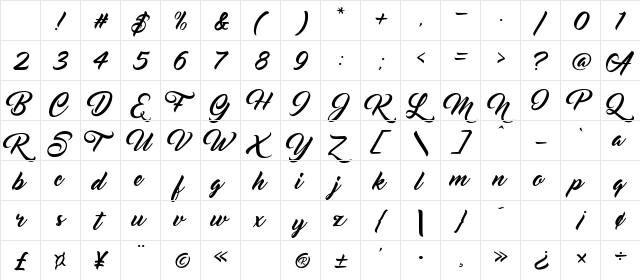
Rougbelt is a composed and adaptable typeface that performs quietly and consistently across a wide range of design contexts.
Pro Tip: Use Rougbelt in both headline and body roles to test its range before committing to a single application.